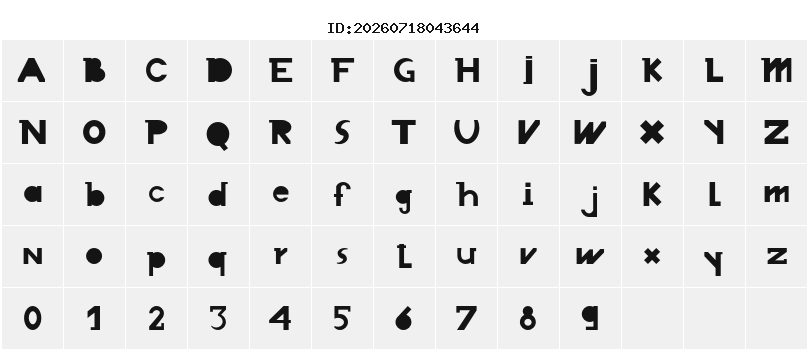
Chronodue Preview
• Font Name: Chronodue
• Full Font Name: Chronodue
• Designer: Paulo R.
About Chronodue.otf
Chronodue.otf is a modern, elegant sans-serif font designed for ultimate readability and visual harmony. Perfect for branding, headlines, web design, and print materials.